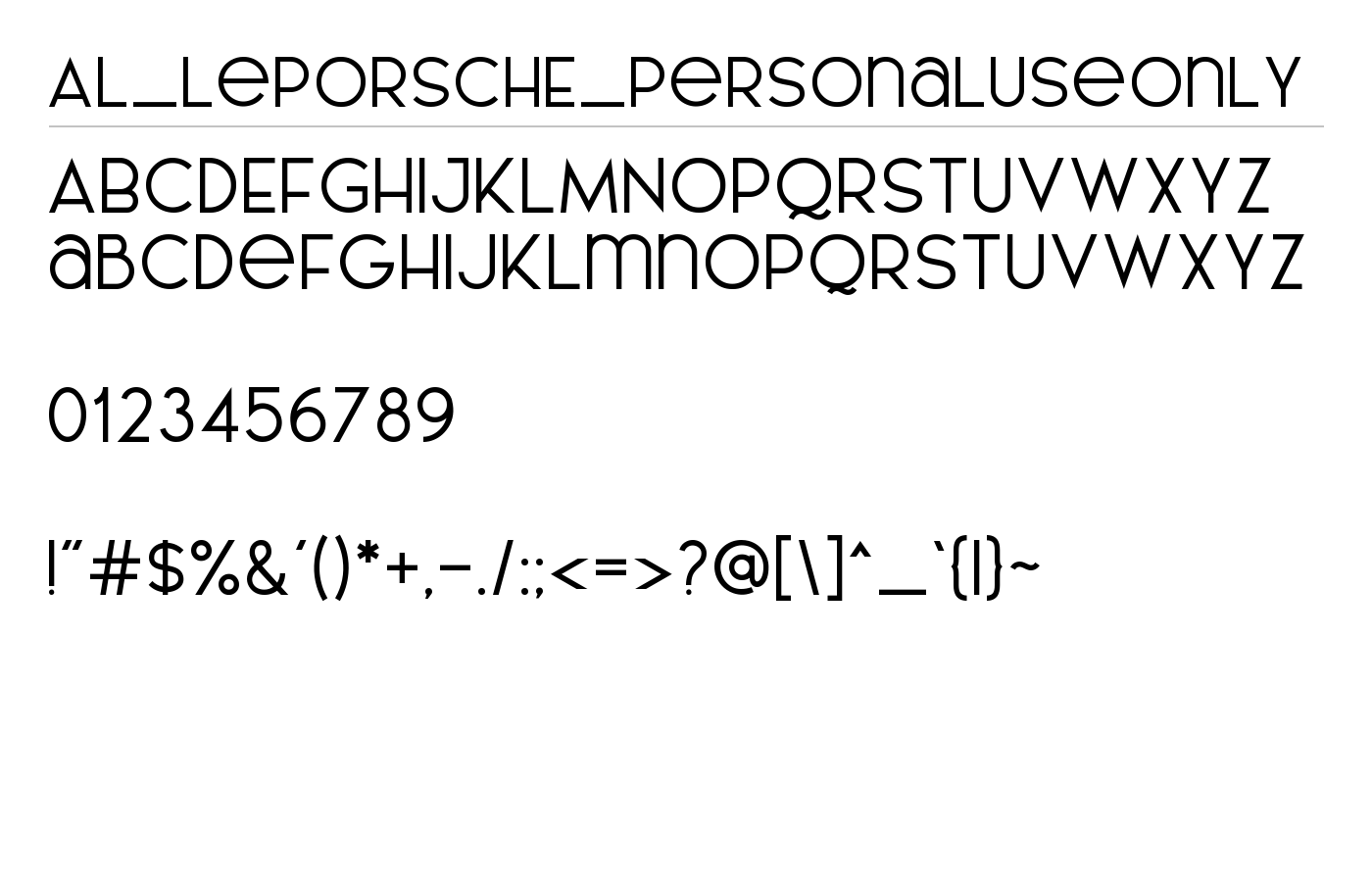
AL_LePORSCHE_PersonalUseOnly is a sleek, modern sans serif font with a distinctive geometric style and a medium weight that gives it a clean but stylish look. Its rounded letterforms combined with unique touches like the single-story 'a' and curved 'Q' tail create a contemporary and elegant vibe, making it ideal for luxury branding, automotive designs, and sophisticated editorial use. This font works well in headlines and logos where clarity and a refined modern feel are key.